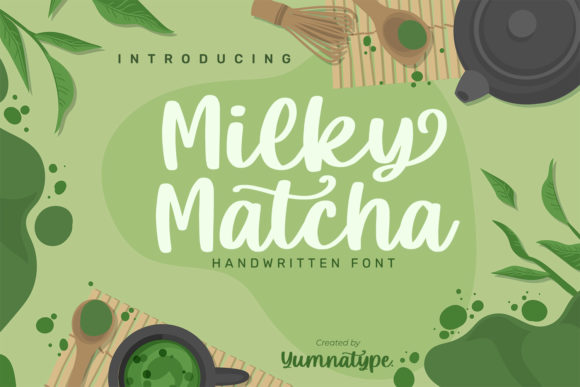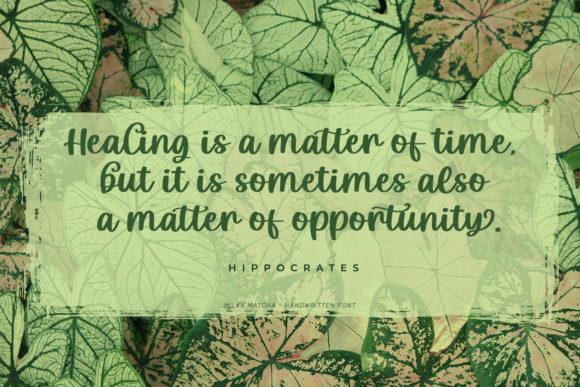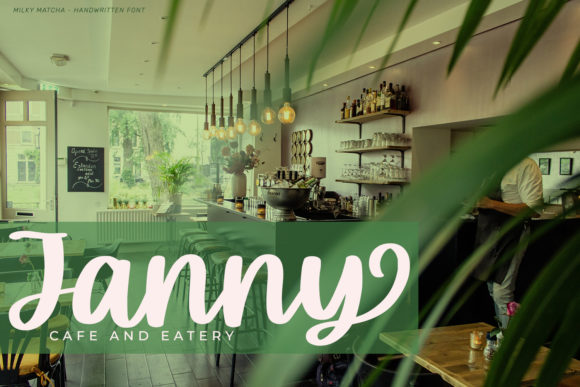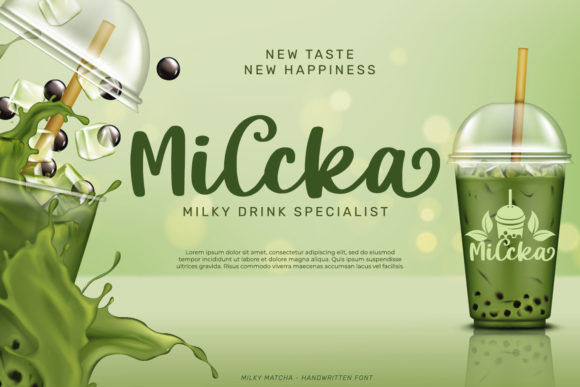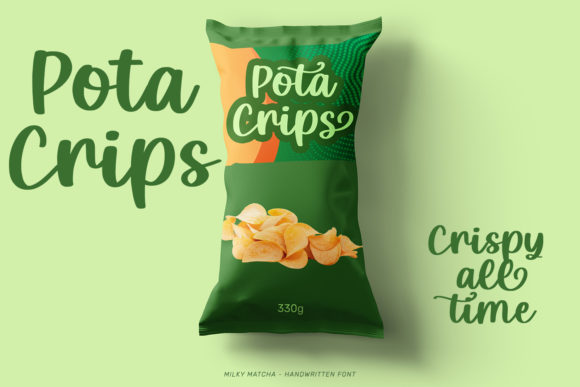
About Milky Matcha Font
Introducing Milky Matcha: The Bold and Cute Handwritten Font for Spectacular Designs
Experience the delightful charm of Milky Matcha, a bold and cute handwritten font that will capture your heart with its unique and timeless style. Whether you’re working on logos, branding, invitations, quotes, posters, social media graphics, or any other creative project, Milky Matcha is the perfect choice to add a touch of whimsy and charm.
Milky Matcha’s bold and cute style brings a sense of playfulness and character to your designs. Its distinct letterforms and adorable strokes make your text exude a delightful and captivating energy.
As a font that boasts versatility and cuteness, Milky Matcha becomes the go-to choice for projects that demand a touch of creativity and personality. Its handwritten appeal ensures that your work resonates with a unique and charming look.
Embrace the delightful charm of Milky Matcha as you embark on your creative journey. Let it be the font that enhances your ideas, making them truly spectacular and captivating in every endeavor.
As you explore the possibilities of Milky Matcha, you’ll find it to be a font that enhances your designs with ease. Its bold and cute style, combined with easy access to glyphs and swashes, transforms your work, ensuring that your logos, branding, invitations, and more leave a lasting impression.
So, fall in love with Milky Matcha and let its completely different and timeless style elevate your designs to new heights. Embrace its cuteness and enjoy the easy access to glyphs and swashes, creating projects that are truly spectacular and unforgettable. With Milky Matcha as your font of choice, your designs will resonate with a sense of creativity and charm, captivating your audience and leaving a lasting impression. Enjoy the playful world of Milky Matcha and create designs that are full of whimsy and delight!